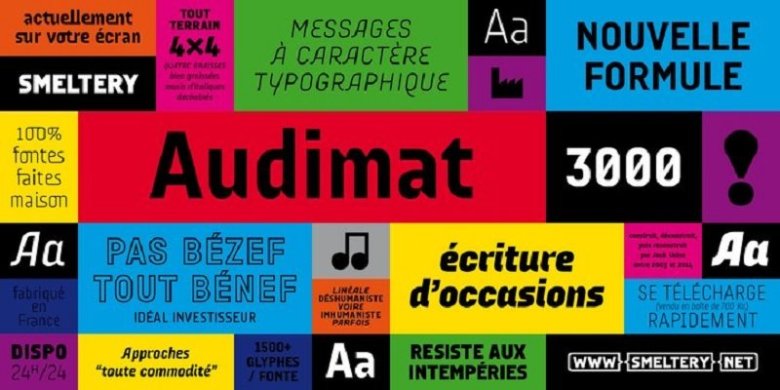
Audimat 3000 Font
Audimat 3000 is a DIN-like/grid-constructed typeface with a more quirky touch. Like many of Jack Usine’s creations, this family borrows various details from the French typographic landscape, particularly the “beautiful monstrosities” offered by amateurish hand-made signs.
Audimat 3000 is a subtle blend of rigidity and eccentricity. With its various options and large character set, it’s the best typographic choice you could ever make for boosting your logos, wayfinding systems, magazine layouts, etc. Don’t be shy, let’s 3000!